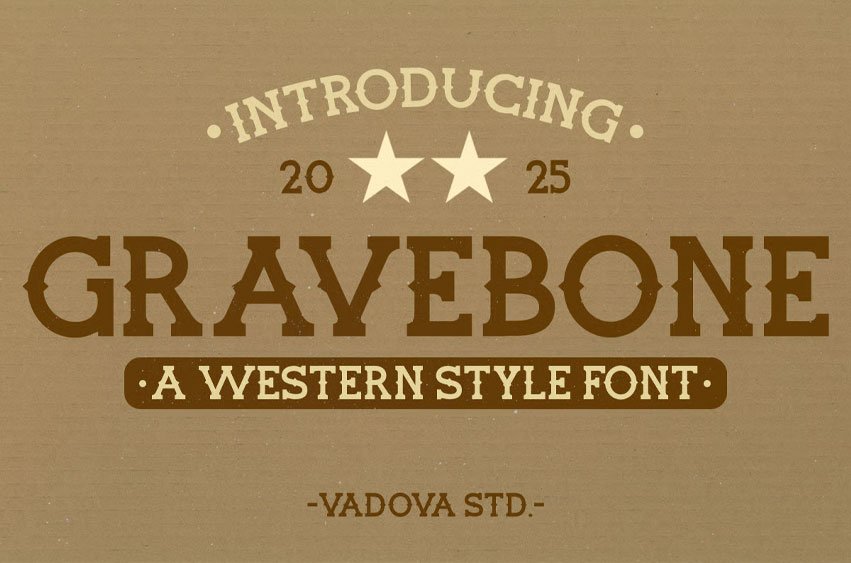
Gravebone Font Western Style Font is a bold western-style display typeface inspired by vintage saloon signs, desert landscapes, and frontier typography.
Featuring strong serifs, wide spacing, and a classic American West aesthetic, it’s perfect for posters, cowboy-themed branding, whiskey labels, historical signage, and rustic editorial layouts. Designed to give your project that raw, untamed character.